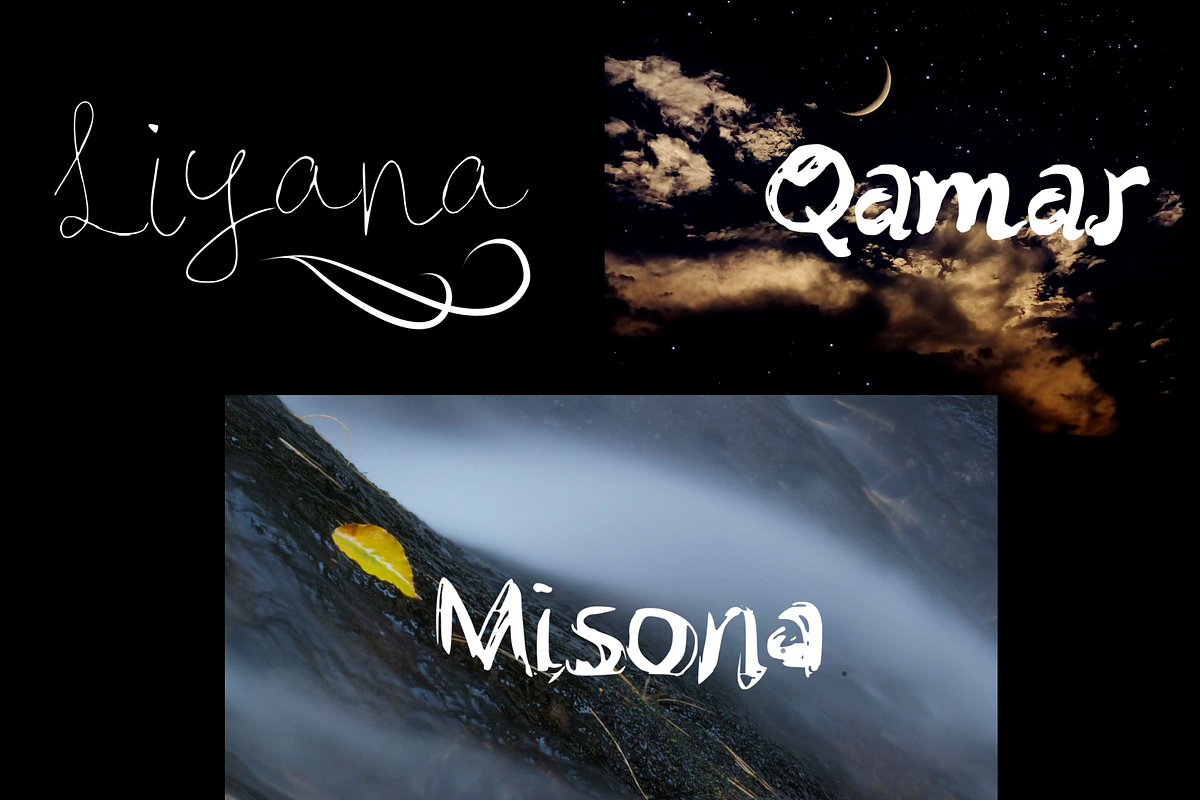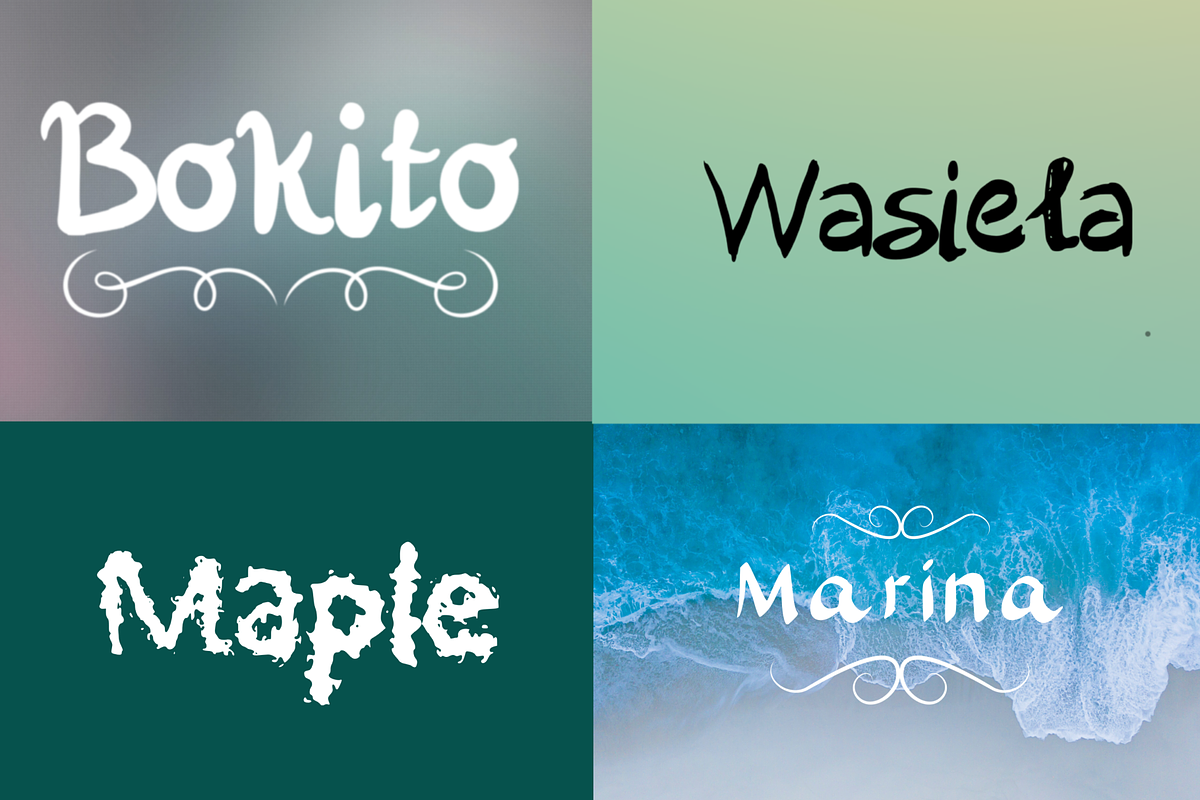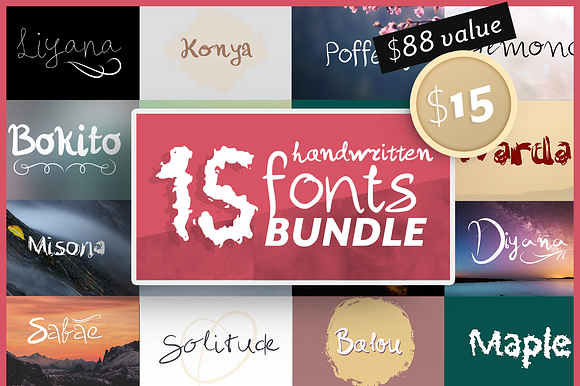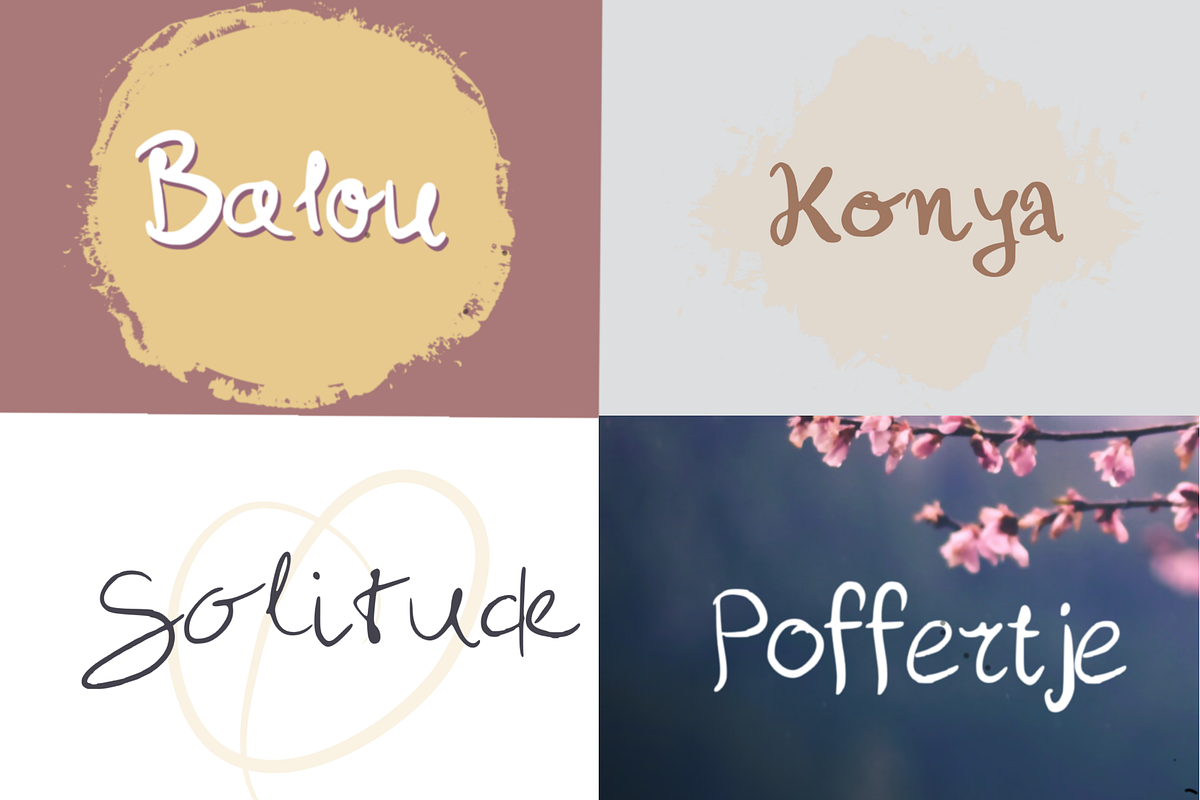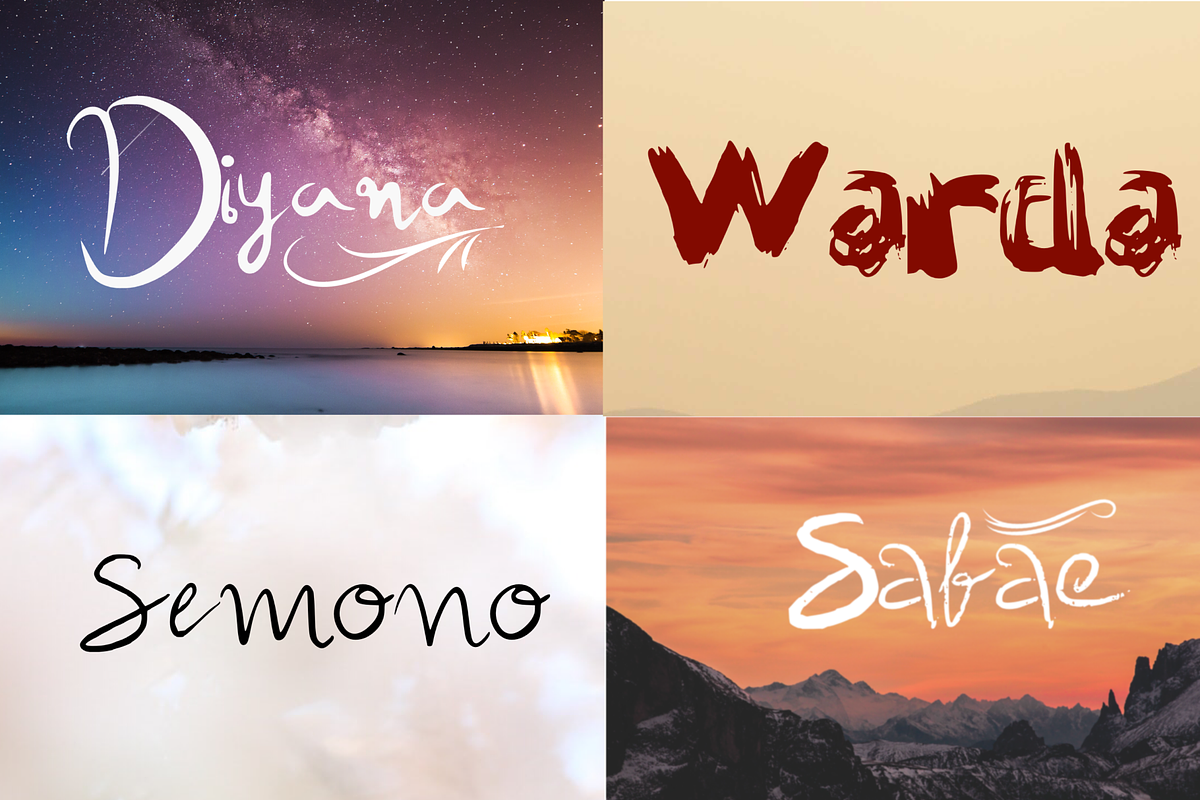
15 Handwritten Fonts Bundle SALE
An amazing handwritten font bundle.
Ideal for logos, handwritten quotes, product packaging, header, poster, merchandise, social media and greeting cards